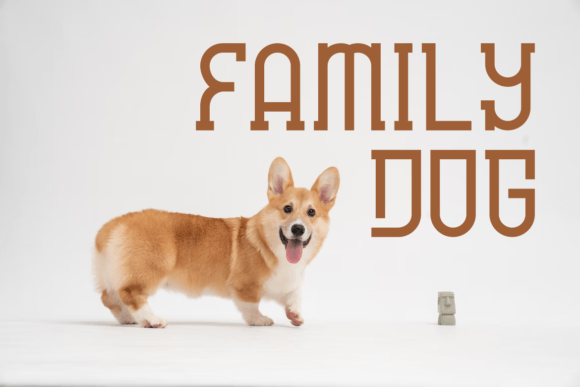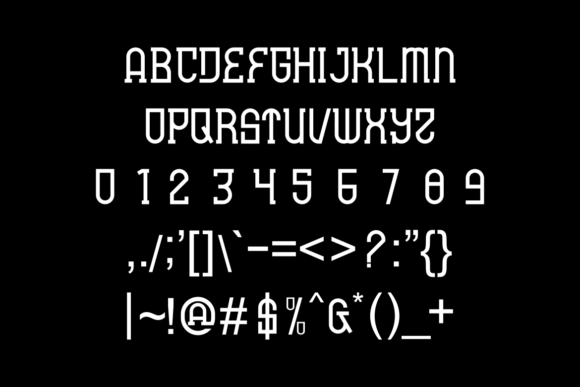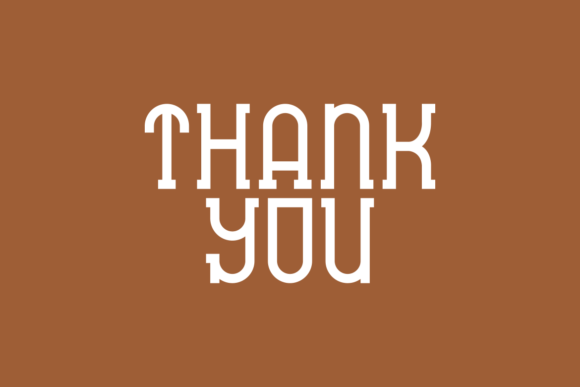
Introduction to Copdog Font
Have you ever been stuck in the middle of a creative project, staring at a blank page, and wishing you had the perfect font to bring your idea to life? This is where the Copdog Font comes in – a cool and modern display font that’s sure to elevate your design game.
As a designer, you know how important it is to have high-quality design resources at your fingertips. The Copdog Font is a valuable addition to any design arsenal, offering a unique and eye-catching style that’s perfect for adding a touch of personality to your projects.
With its transparent background and sleek lines, the Copdog Font is a versatile design tool that’s easy to use and download – and the best part? It’s completely free! Whether you’re working on a commercial project or just want to add some flair to your personal blog, the Copdog Font is a must-have resource that’s sure to deliver high-quality results every time.
Key Features of Copdog Font
- Unique, hand-drawn design perfect for creative projects requiring a personal touch.
- Features a transparent background, allowing for seamless integration into any design project.
- Supports a wide range of languages, making it a versatile design resource for global projects.
- Perfect for use in logos, branding, and other design elements where a distinctive, creative look is desired.
Honest Review: Copdog Font
As a designer, I’m always on the lookout for high-quality design resources to enhance my creative projects. Recently, I stumbled upon the Copdog Font, and I must say it’s been a game-changer for my latest design endeavors.
Here’s what I love about the Copdog Font: ✨ It’s a free download, which is always a bonus. ✨ The font comes in a variety of styles and weights, making it perfect for creating visually appealing headers and titles. ✨ The transparent background allows for seamless integration with any design element. ✨ The font is also highly customizable, which is a must-have for any serious designer.
- Seamless integration with any design element
- Perfect for creating visually appealing headers and titles
Tips for Getting the Most Out of Copdog Font
To get the most out of the Copdog Font, use it in conjunction with other high-quality design resources, such as images and graphics. Experiment with different font sizes and styles to create a unique and eye-catching design. The Copdog Font is also a great resource for creating custom logos and branding materials.
The Copdog Font is commonly used for a wide range of creative projects, including logos, branding materials, presentations, and documents. It’s also a great resource for designers who need a high-quality font with a transparent background.